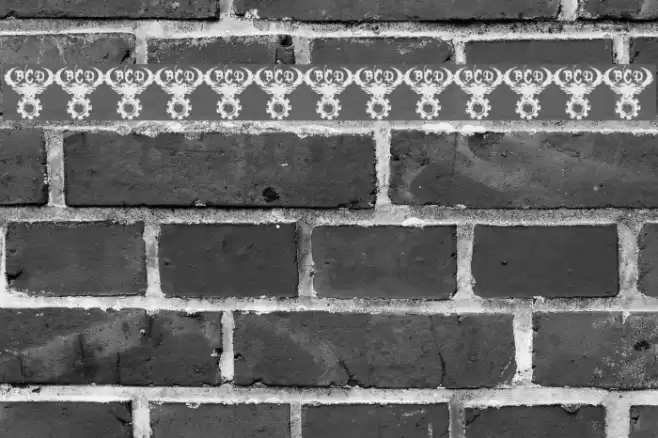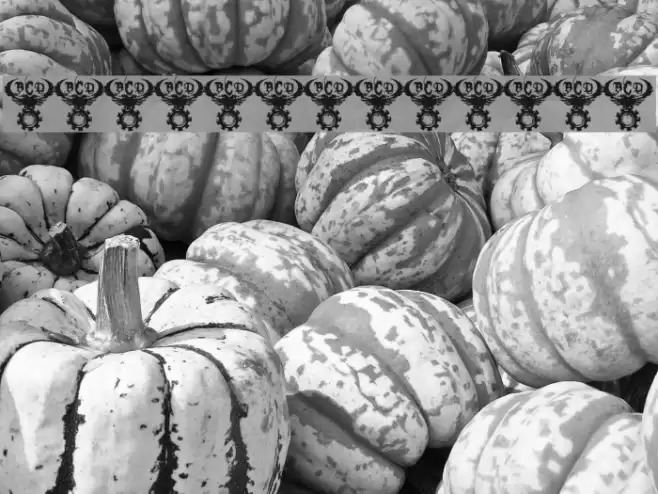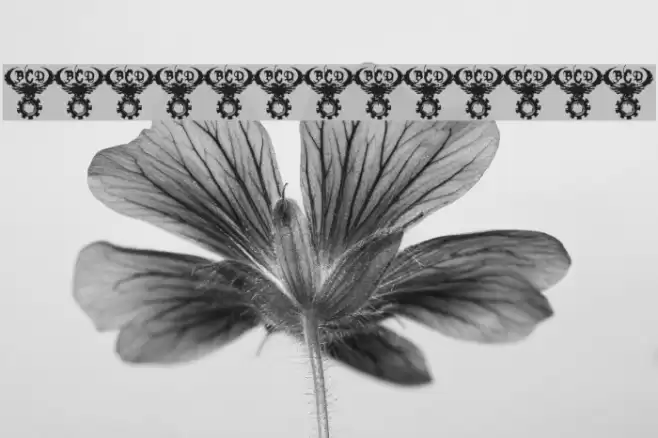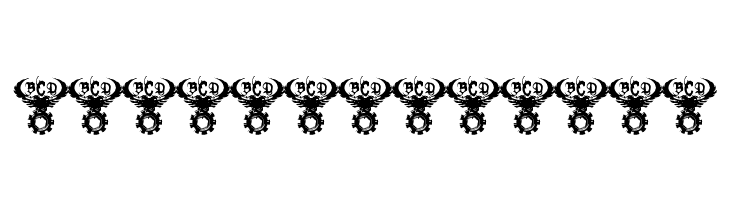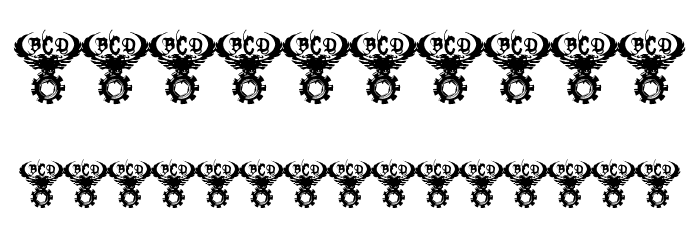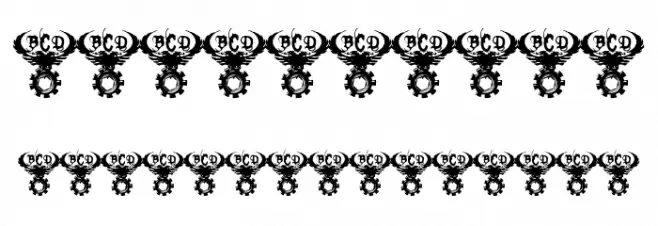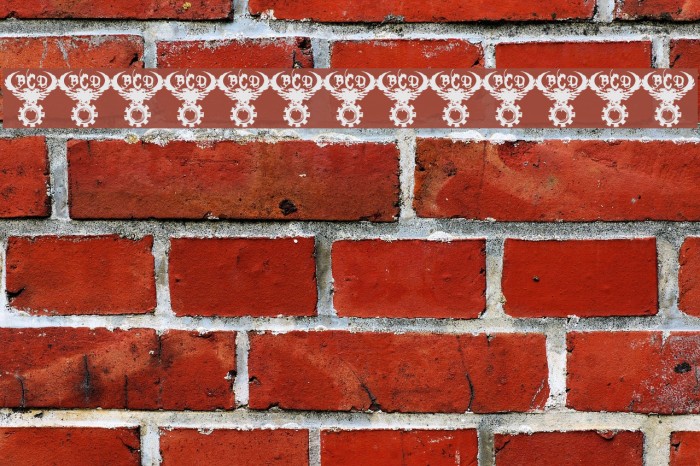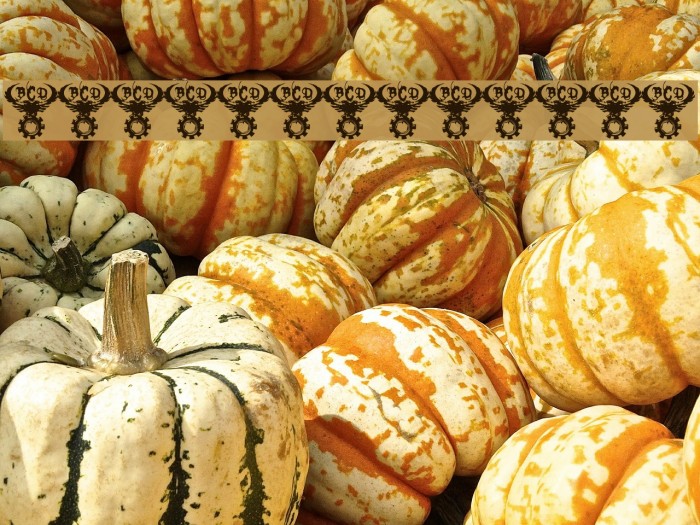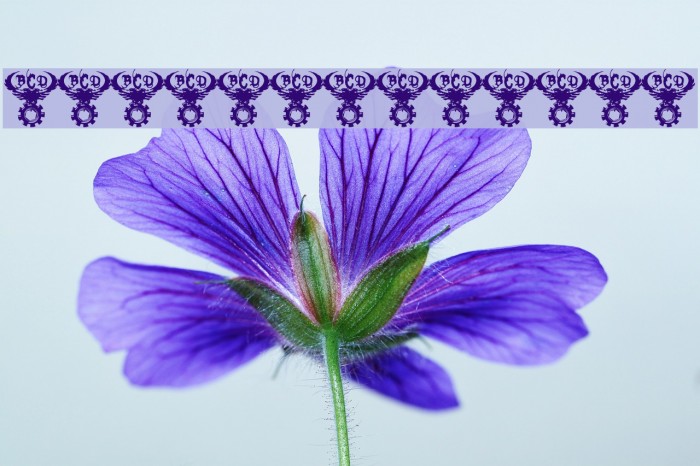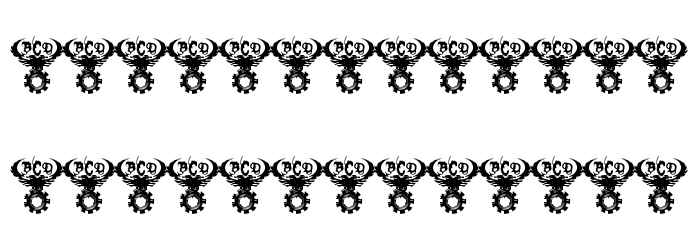
TEK HED ANGRY Font
TEK HED ANGRY Description
This font features a bold and intricate design, incorporating elements of gears and mechanical motifs. Each character is encased within a circular gear-like structure, giving it a distinct industrial and steampunk aesthetic. The letters are highly stylized with sharp edges and decorative flourishes, creating a sense of movement and complexity. This unique style is consistent across both uppercase and lowercase letters, as well as numbers and special characters. The overall appearance is striking and visually engaging, making it suitable for projects that require a strong and thematic presence.
A bold, industrial font with gear motifs and intricate detailing from Uncategorized fonts.
- Proposed Projects: Ideal for steampunk-themed designs, industrial branding, or creative posters.
- Overall Style: Industrial, Steampunk, Decorative
- Use Case: Logos, Posters, Thematic Branding